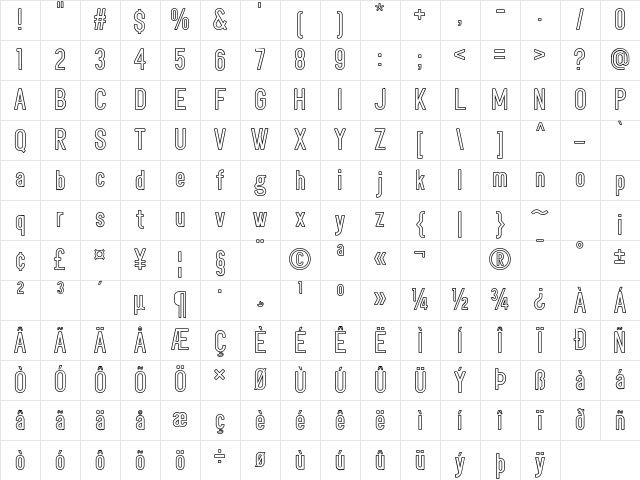
Complete Shakerato-PERSONAL Outline glyph index. Displaying only characters natively supported by Shakerato-PERSONAL Outline font.
Shakerato-PERSONAL is built around its visual character rather than neutral utility - its distinctive forms are designed to make an impression at display sizes.
Font Pairing: Pair with a clean neutral sans-serif for body copy to let Shakerato-PERSONAL's character lead without overwhelming the composition.
Pro Tip: Use Shakerato-PERSONAL exclusively at display sizes - it was designed to be seen, not read at length. Let a neutral companion handle body copy.